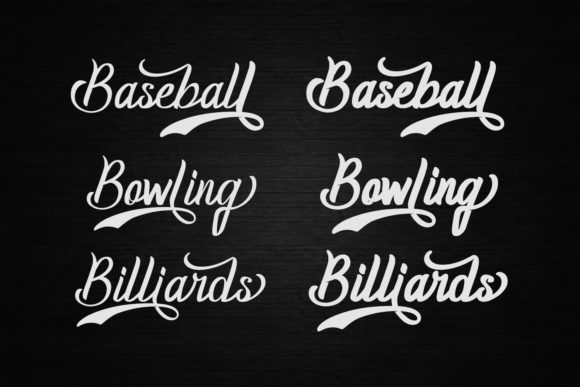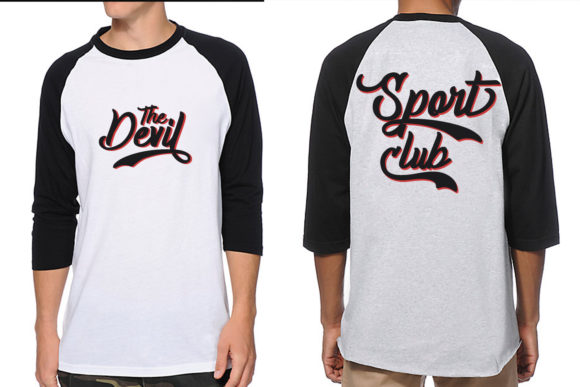
The Perfect Swing: Introducing Homerun Script Font
Have you ever been working on a design project, and that one elusive font keeps eluding you? You know, the one that’s going to take your project from meh to magnificent? That’s exactly how I felt when I discovered the Homerun Script Font.
This classic script font is more than just a pretty face – it’s a game-changer. Whether you’re a seasoned designer or just starting out, Homerun Script Font is the perfect addition to your toolkit. Its unique charm and versatility make it an instant standout, elevating any design idea to new heights.
With Homerun Script Font, the possibilities are endless. From wedding invitations to brand logos, this font is sure to be the home run you’ve been searching for. Its value lies in its ability to add a touch of sophistication and elegance to any design, making it a must-have for designers of all levels.
Homerun Script Font Key Features
- Unique Characteristics: Homerun Script Font is a handwritten font with a playful, energetic feel, perfect for adding a touch of personality to designs.
- Font Size: Designed to be versatile, Homerun Script Font is available in a range of sizes, from 12pt to 48pt, allowing for easy scaling and customization.
- Resolution: High-resolution font files, suitable for use at 300 DPI and above, ensuring crisp and clear text at any size.
- Font Weight: Available in Regular and Bold weights, providing flexibility for designers to choose the perfect weight to suit their design needs.
- Unicode Support: Supports a wide range of languages, including Latin, Cyrillic, and Greek scripts, making it a great choice for designers working on multilingual projects.
Homerun Script Font Review
I’ve had the chance to work with the Homerun Script Font, and here’s my honest take.
The Homerun Script Font is a beautiful, handwritten font that adds a touch of elegance to any design project. It’s perfect for creating eye-catching headings and titles that grab the reader’s attention.
- Highly legible even at small font sizes
- Comes in a wide range of weights and styles
- Works well with modern and vintage designs
While the Homerun Script Font is a great addition to any designer’s toolkit, there are some limitations to consider.
- May not be suitable for body text, as it can be difficult to read at longer lengths
- Some characters may not be fully connected, which can make them appear a bit awkward
- Not suitable for small-scale designs, as the font may get lost in the layout
Overall, the Homerun Script Font is a great choice for designers who want to add a touch of sophistication to their projects. While it may have some limitations, it’s a versatile font that can be used in a variety of contexts.
Tips for Getting the Most Out of Homerun Script Font
1. Use Homerun Script Font sparingly to add a touch of elegance to your design.
2. Pair Homerun Script Font with other fonts to create a visually appealing contrast.
3. Experiment with different font sizes and styles to achieve the desired effect.
Common Use Cases for Homerun Script Font
2. Branding and logo design.
3. Event signage and graphics.
Alternatives to Homerun Script Font
Great Vibes is a modern, cursive script font that is perfect for creating a fun and playful atmosphere. It is great for use in social media, advertising, and branding materials where a friendly and approachable tone is desired. Great Vibes has a more casual feel compared to Homerun Script Font, which makes it ideal for use in informal settings.